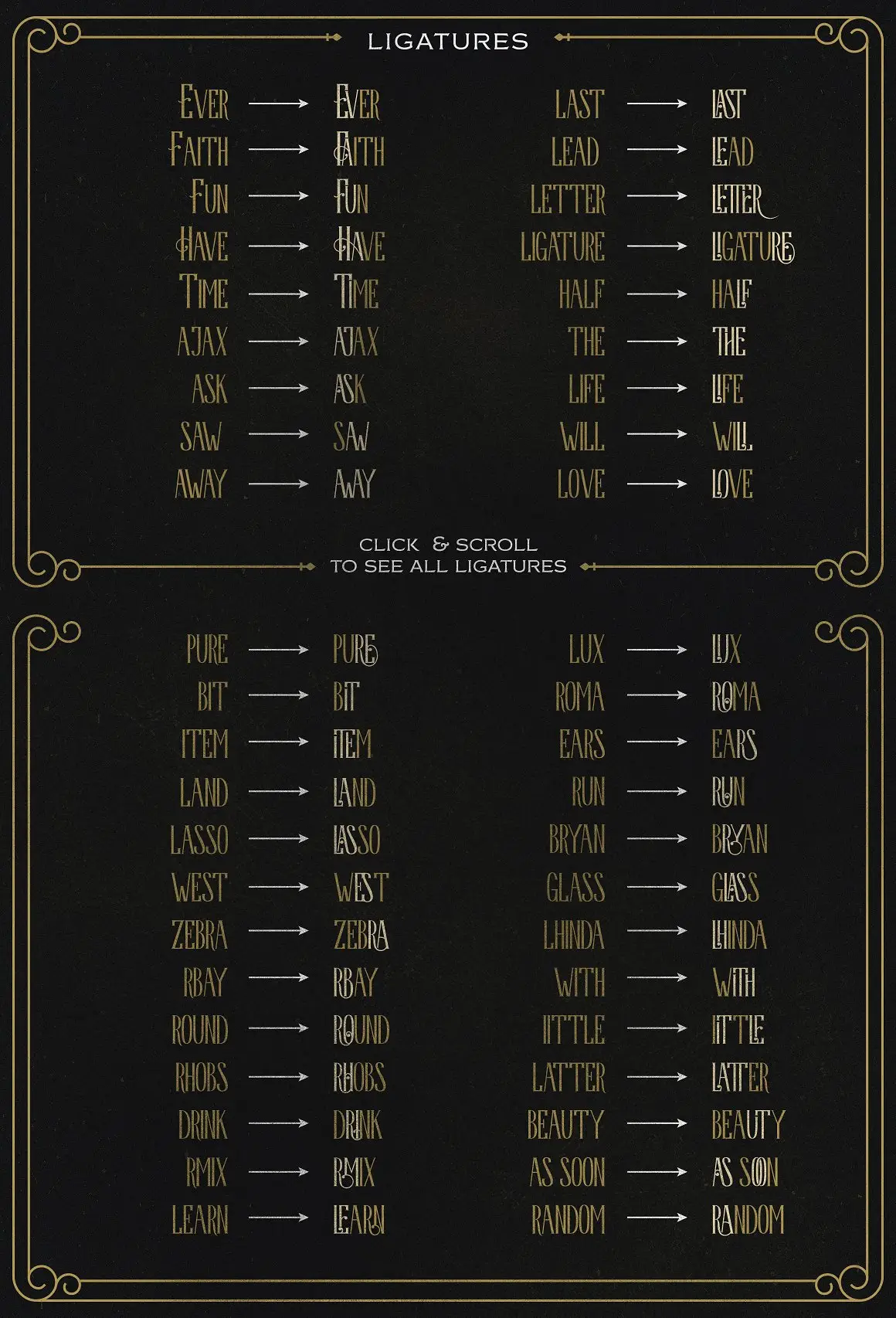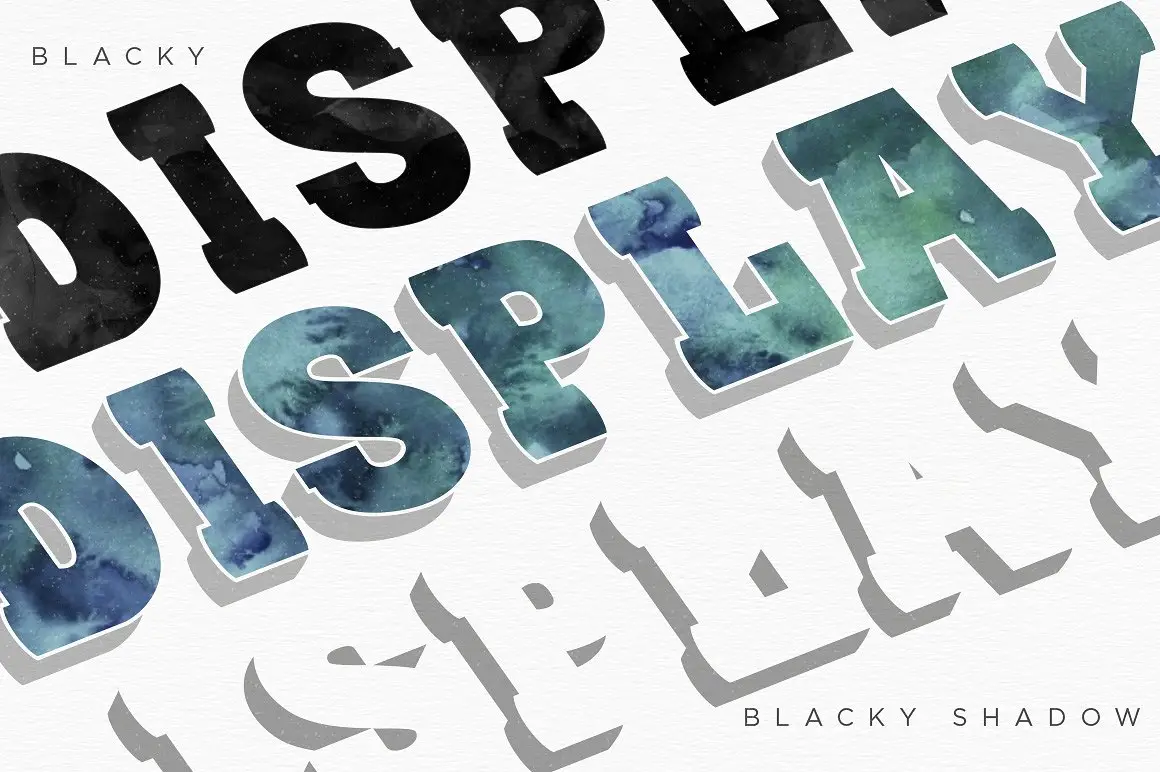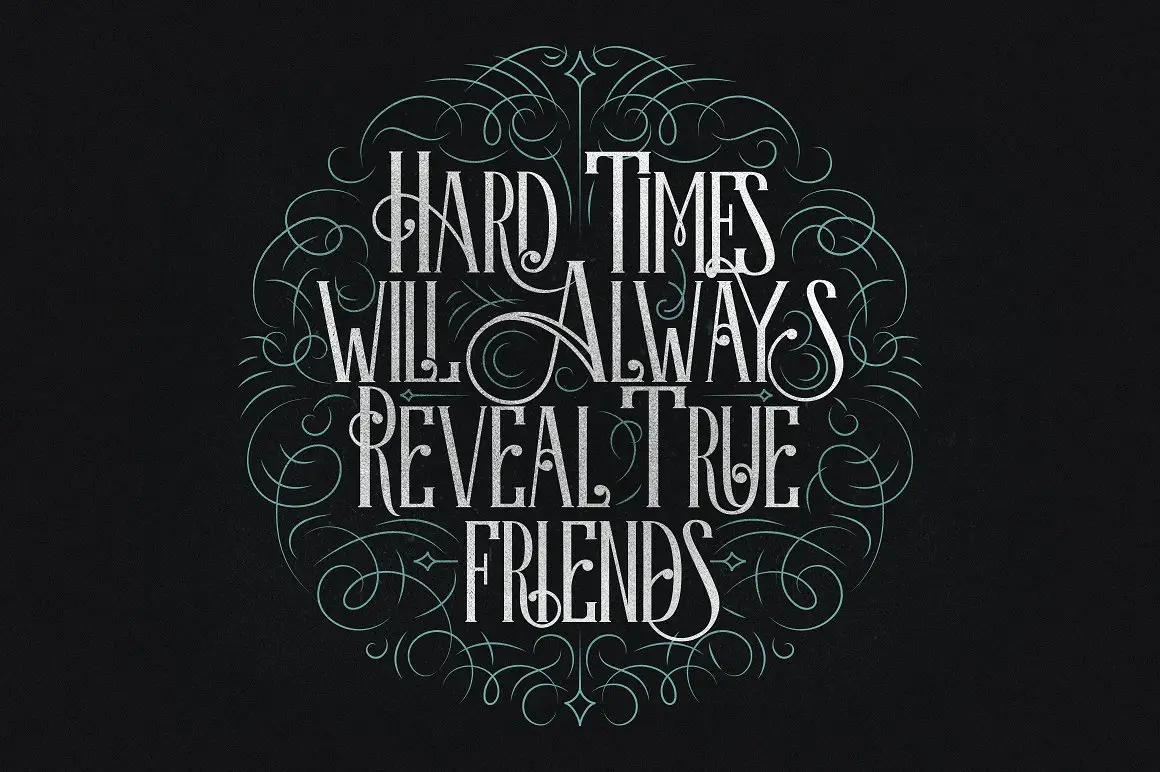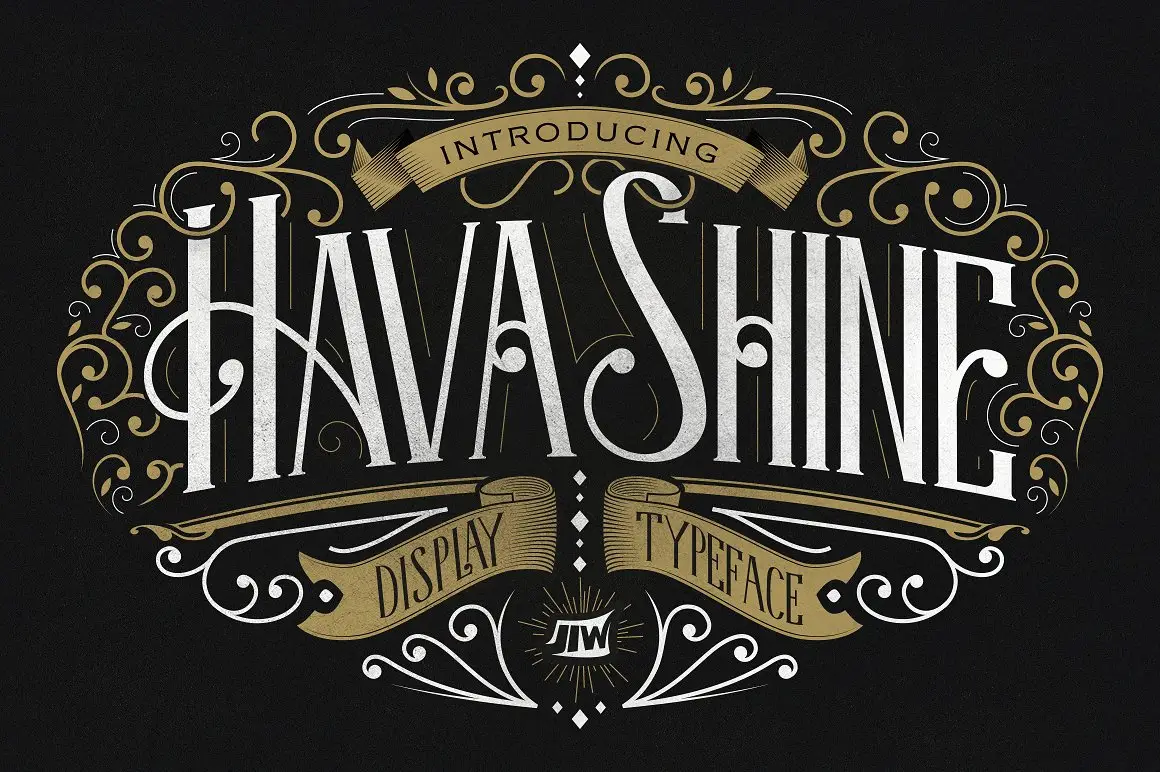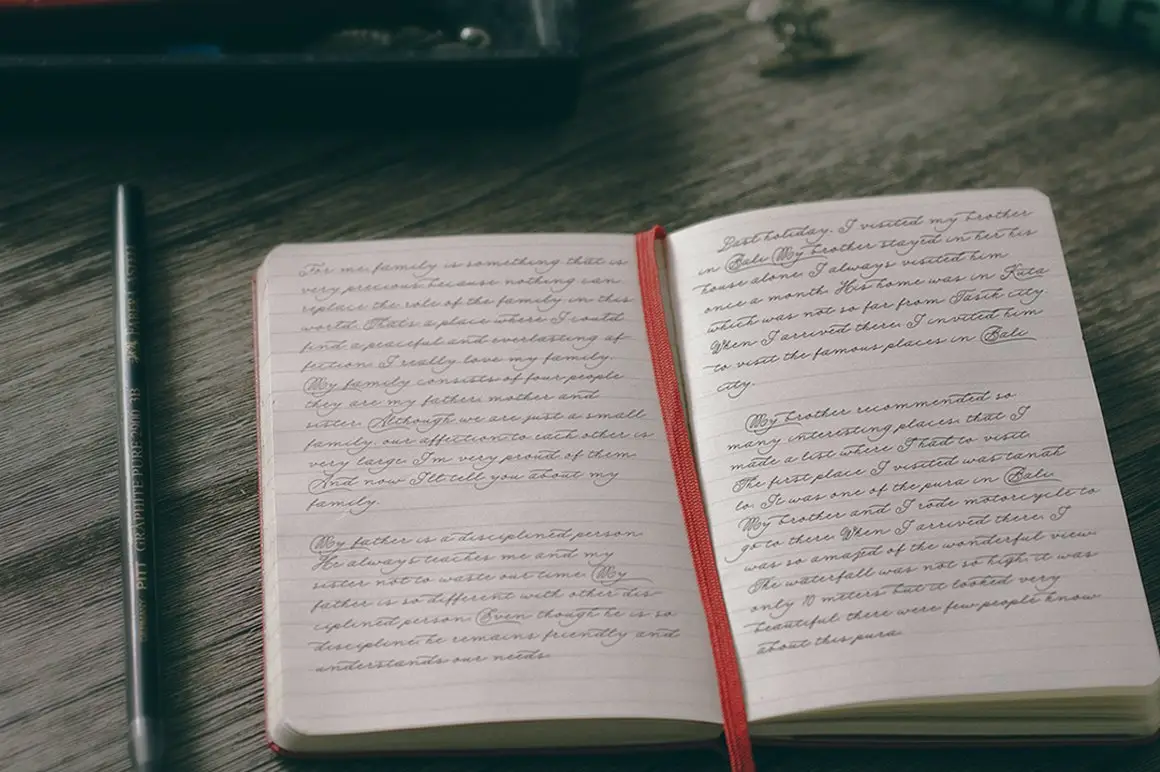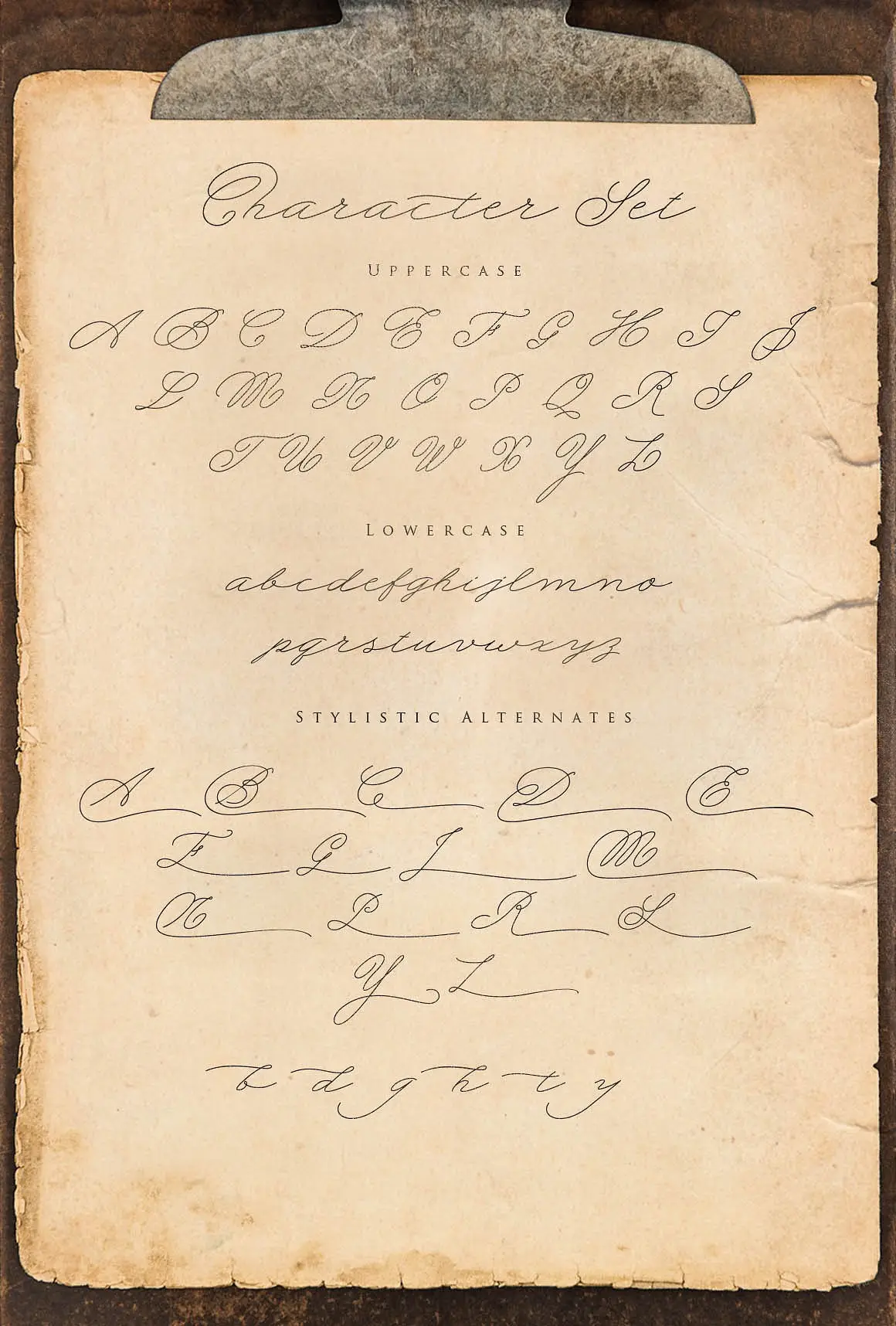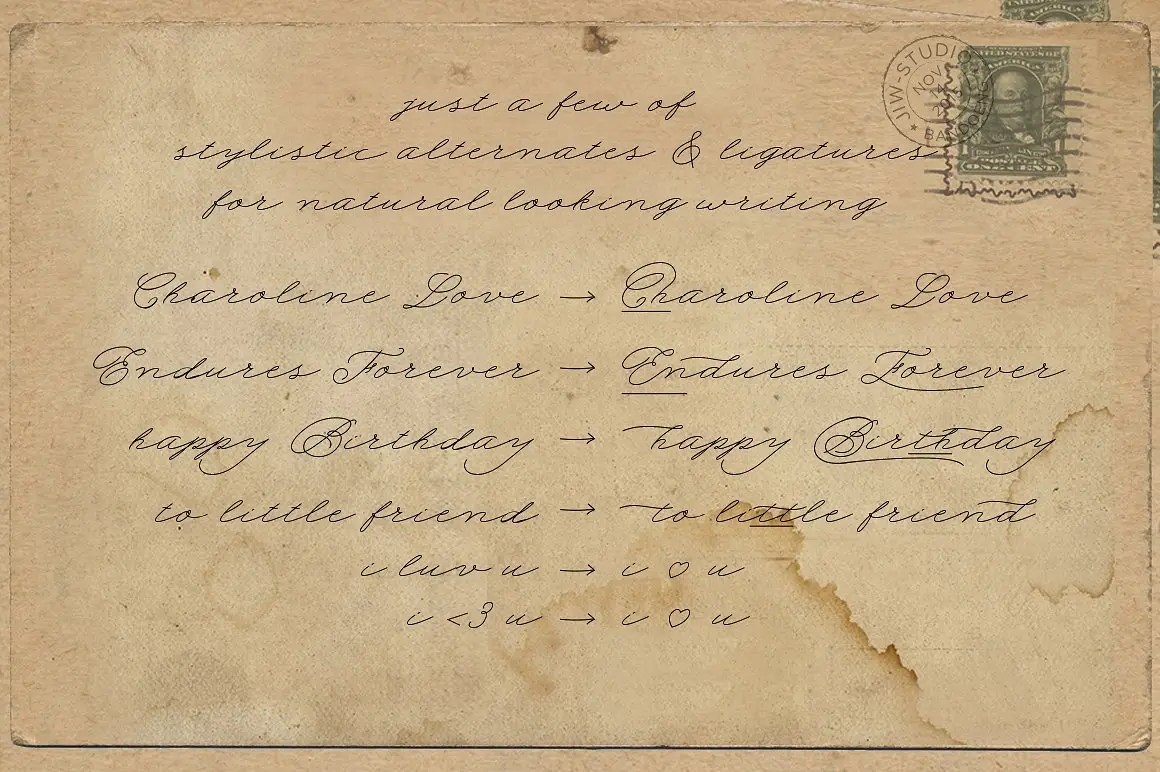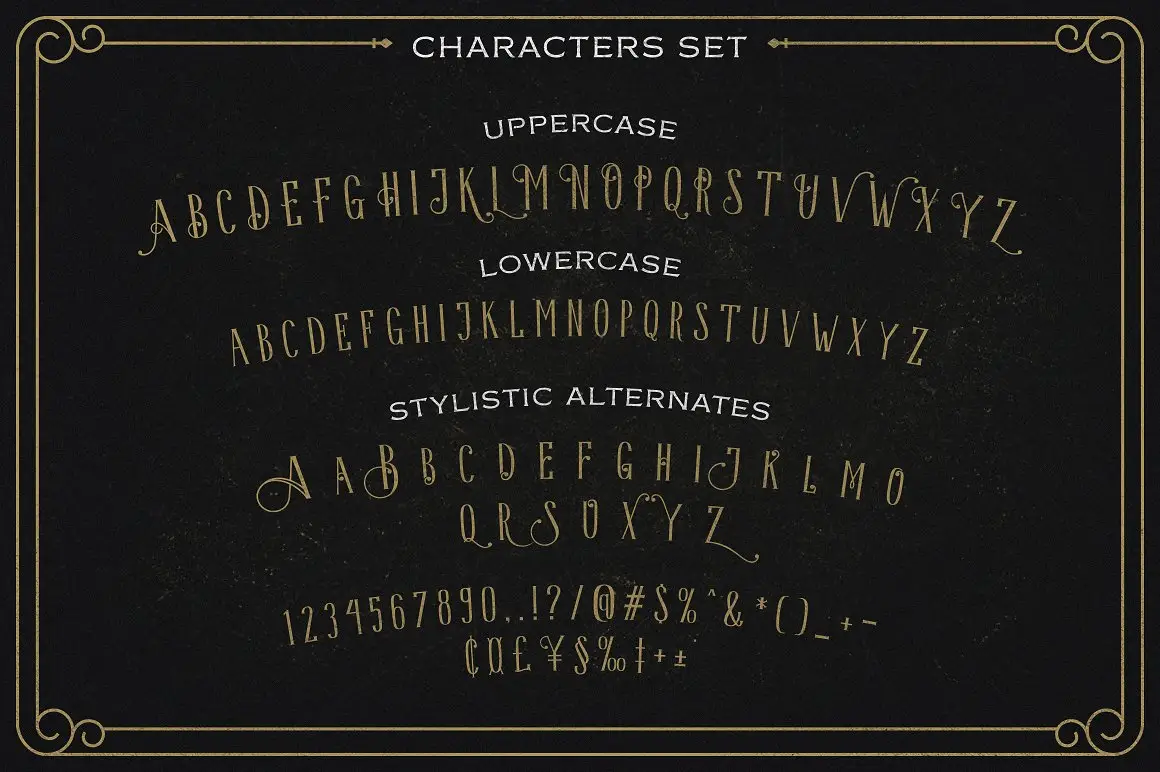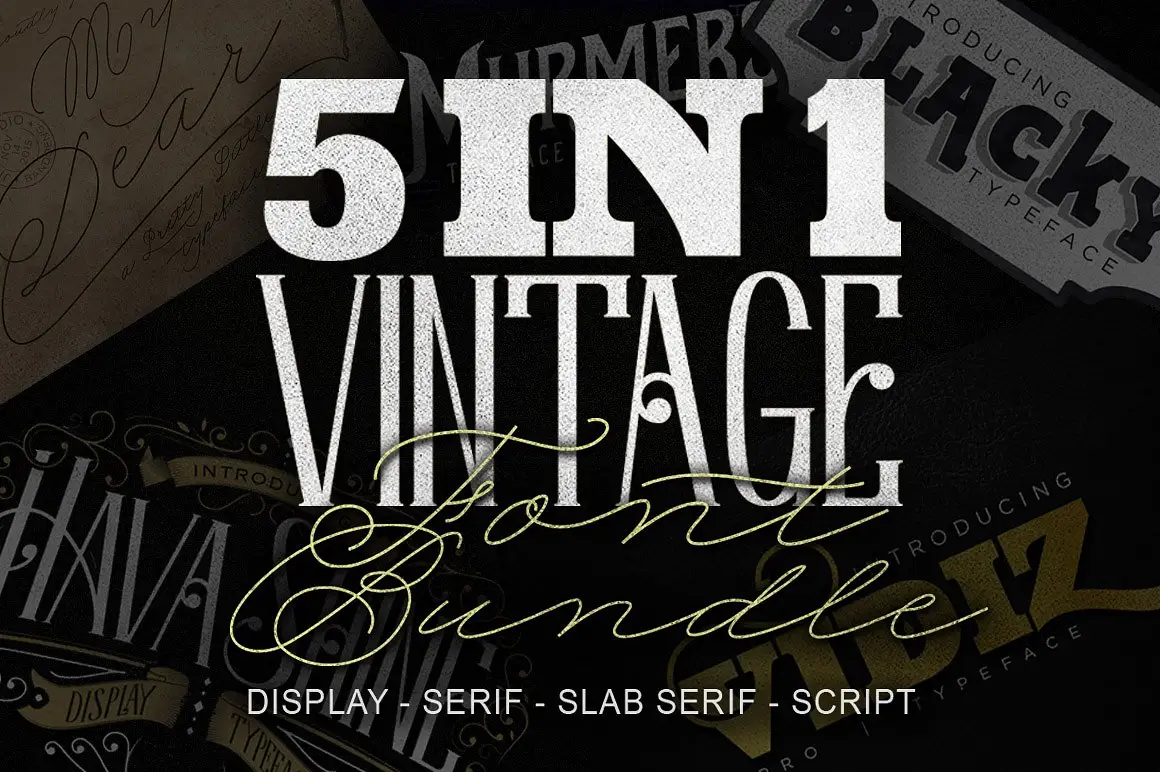
Introducing the 5 In 1 Vintage Font Bundle 1, a carefully curated collection of five unique vintage-style fonts designed to elevate your creative projects. Each font in this bundle embodies a distinct character, making them perfect for a variety of applications.
- Five diverse vintage font styles
- Multiple weights and styles for versatility
Each font in this bundle offers a unique aesthetic, ideal for branding, logos, posters, and more. The fonts maintain clarity and readability, making them suitable for both print and digital media.
- Experiment with different weights for headlines and body text.
- Combine fonts from the bundle for a cohesive vintage look.
- Use in both web and print projects for a timeless appeal.